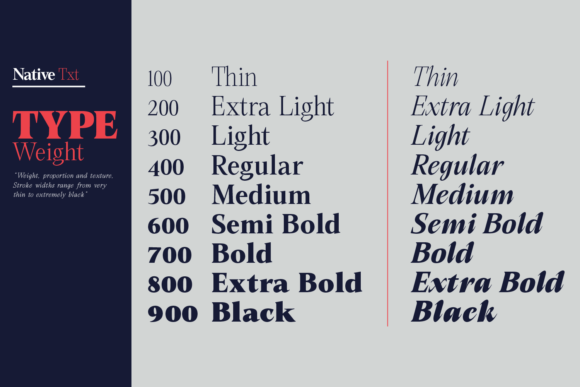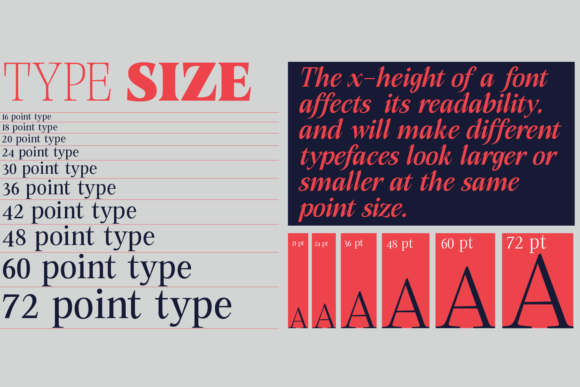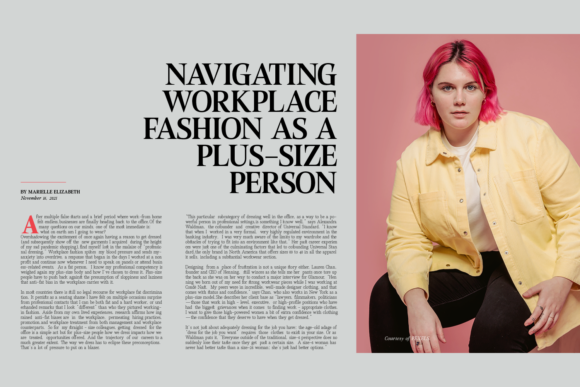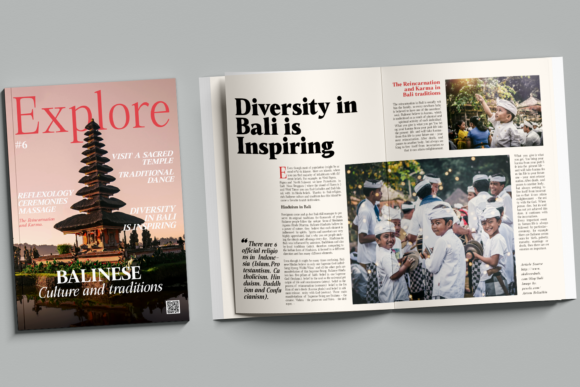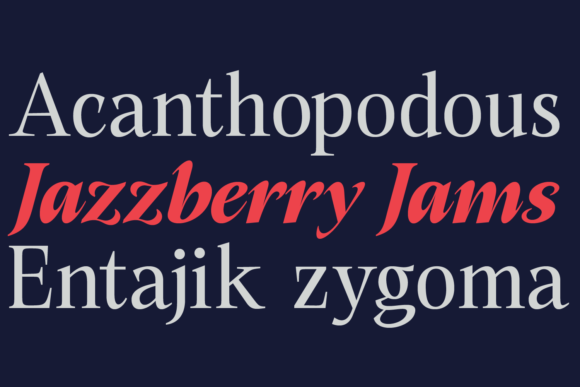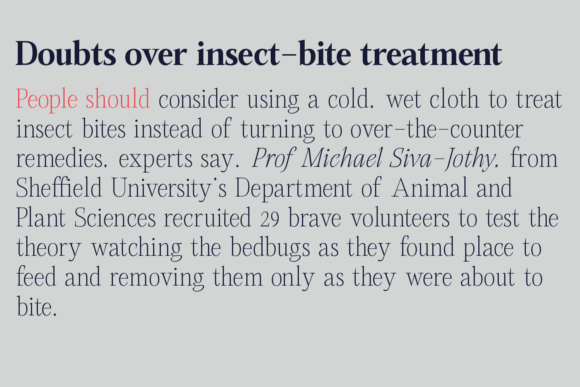
Introduction to Native-Txt Font
Have you ever been stuck in front of a blank design project, desperately searching for that perfect font to bring your creative vision to life? We’ve all been there. It’s that moment when everything seems to be missing that final spark, until suddenly, you stumble upon the perfect design resource – and your project is transformed overnight. For designers, finding the right font can be the difference between a good design and a great one.
Enter the Native-Txt Font, a game-changing serif font that’s as bold as it is adaptable. Whether you’re working on a formal project or a more casual creative endeavor, this high-quality font is sure to elevate your design to the next level. With its transparent background and modern aesthetic, the Native-Txt Font is the perfect addition to any design project.
Key Features of Native-Txt Font
- It features a transparent background, making it easy to overlay on any image or design element.
- Resolution is not a concern, as the font is vector-based, allowing for scalability without loss of quality.
- Native-Txt Font is designed to be highly legible, with clear and crisp typography, making it ideal for a wide range of creative projects.
Honest Review: Native-Txt Font
I recently had the chance to experiment with the Native-Txt Font, and I’m excited to share my thoughts. As a designer, I’m always on the lookout for high-quality design resources to elevate my creative projects.
What works well about the Native-Txt Font is its clean and modern aesthetic, perfect for creating a unique visual identity. The font’s transparent background makes it easy to overlay on images or other design elements. I particularly appreciated the free download option, which allowed me to test the font without any restrictions.
Here are some key features that stood out to me:
- ✨ Modern and clean design
- ✨ Transparent background for easy overlaying
- ✨ High-quality design resource
One limitation I noticed was that the font’s versatility is somewhat limited to digital use. While it works beautifully on screens, it may not be the best choice for print projects.
Overall, I’m impressed with the Native-Txt Font. Its unique design and high-quality aesthetic make it a valuable addition to any designer’s toolkit. Just keep in mind its limitations, and it’s sure to become a go-to resource for your creative projects.
How to Use Native-Txt Font
The Native-Txt Font is a versatile, high-quality font that can be used in a variety of creative projects. With its unique design, it offers a transparent background that can be easily customized to fit your needs.
Tips for Getting the Most Out of Native-Txt Font
To get the most out of the Native-Txt Font, consider the following tips:
- Experiment with different font sizes and styles to achieve the desired effect.
- Combine the font with other design elements to create a visually appealing design.
- Use the font in conjunction with a transparent background to create a unique and eye-catching design.
The Native-Txt Font is ideal for a range of creative projects, including:
- Infographic design
Can I modify the Native-Txt Font to suit my specific design needs?
While the Native-Txt Font is designed to be versatile and adaptable, it’s not recommended to modify the font itself. However, you can use font editors or design software to create custom styles or variations that fit your project’s requirements. Keep in mind that modifying the font may affect its legibility and overall aesthetic, so be sure to test your design thoroughly before finalizing it.